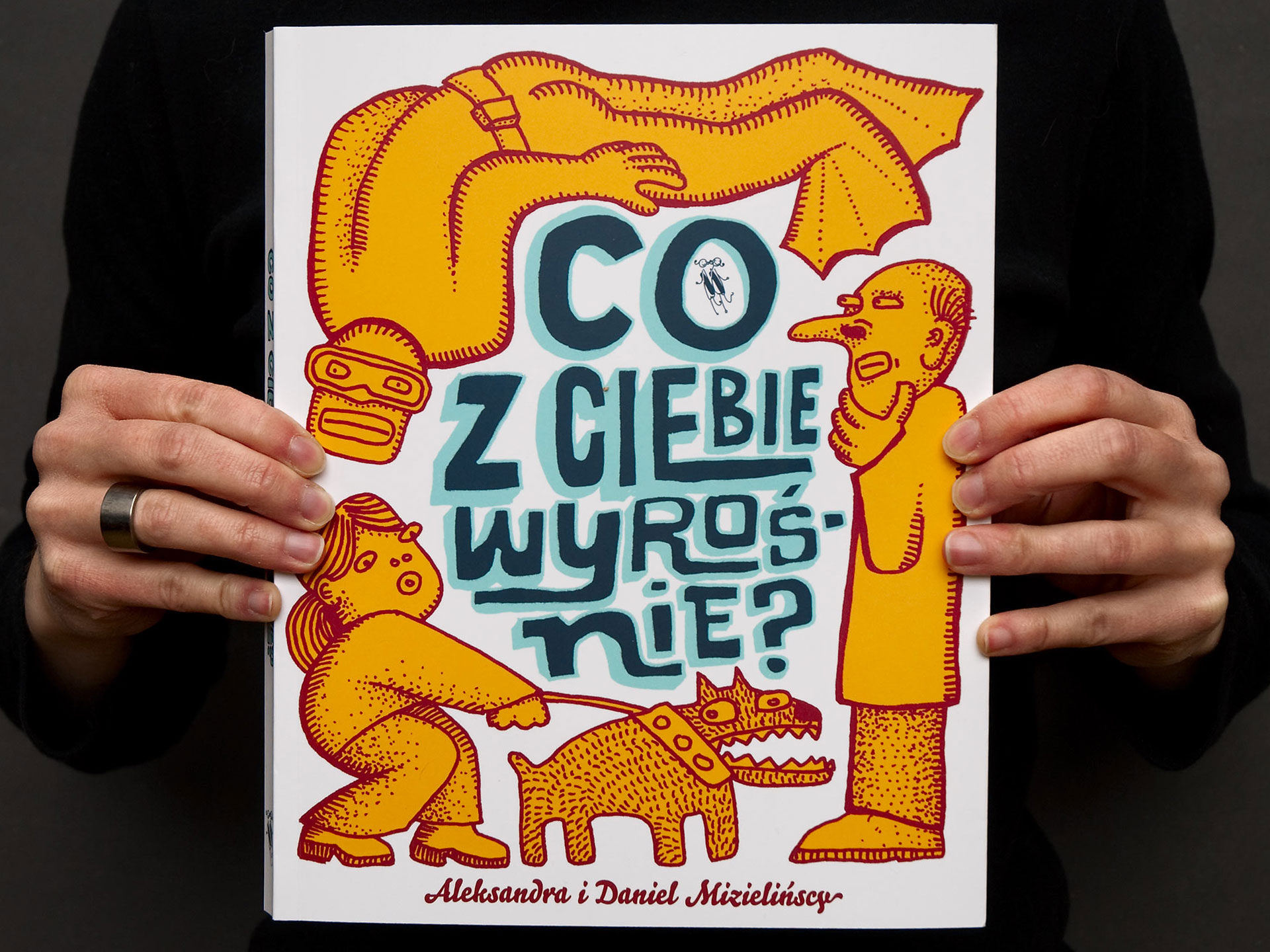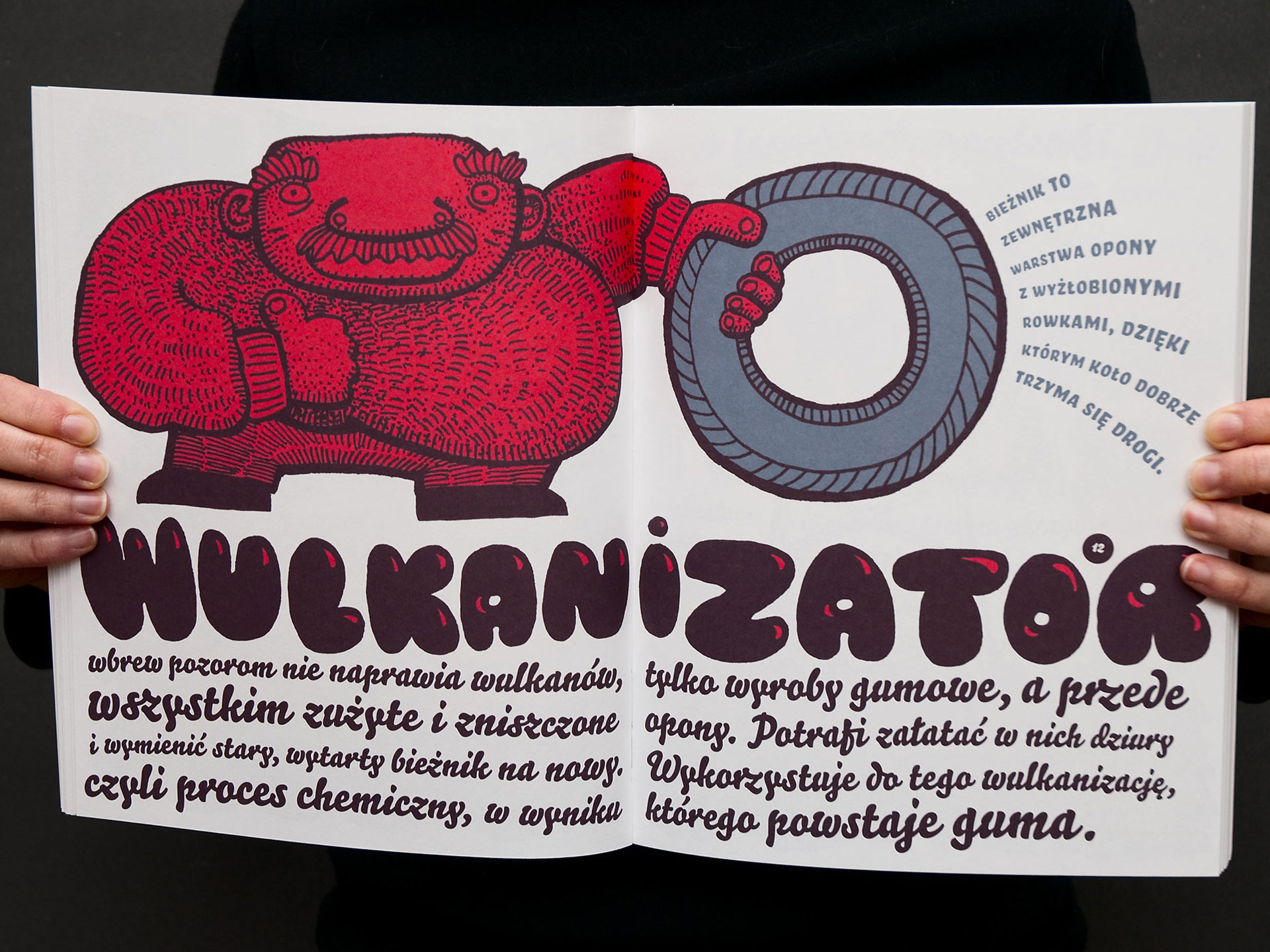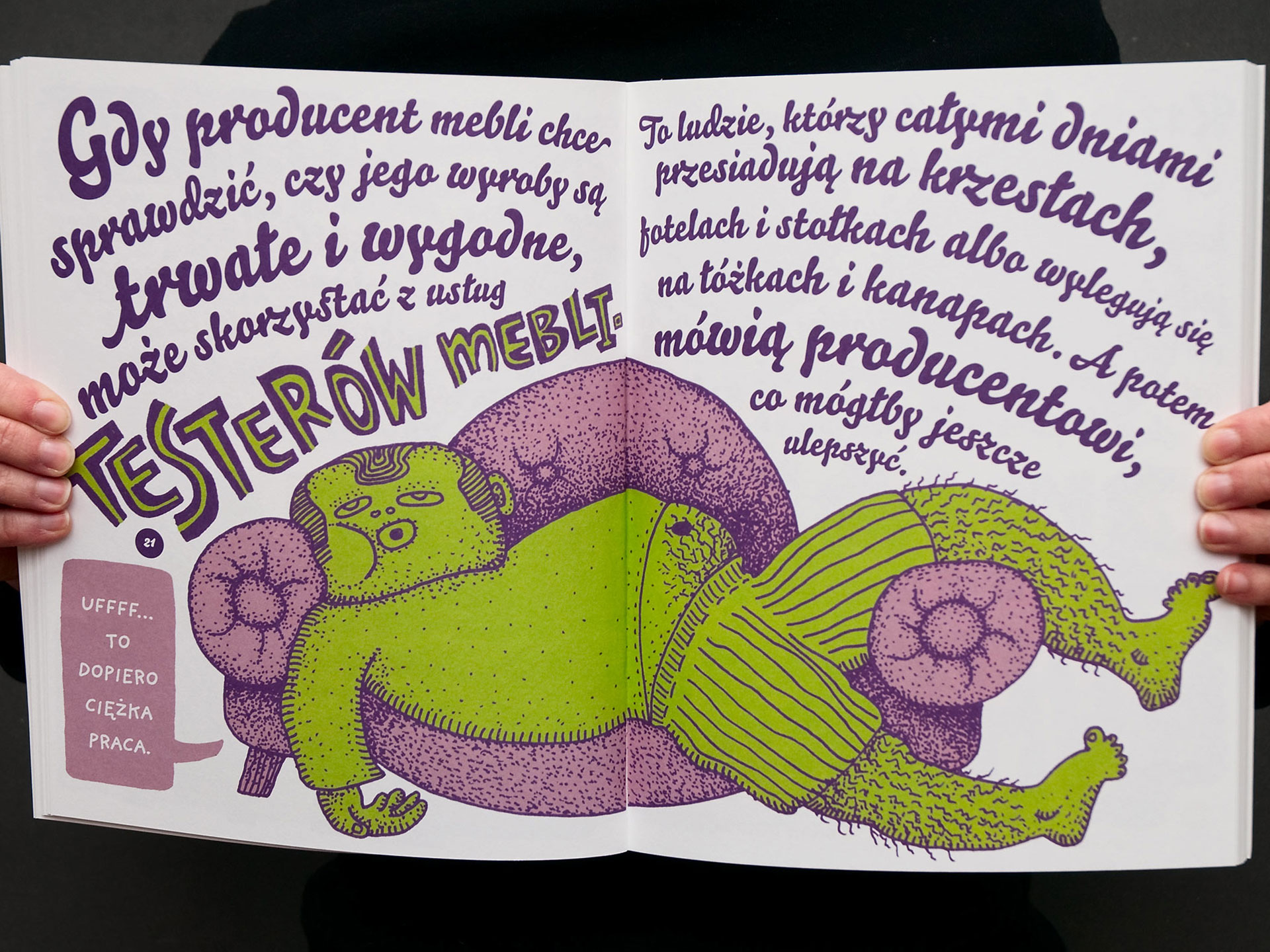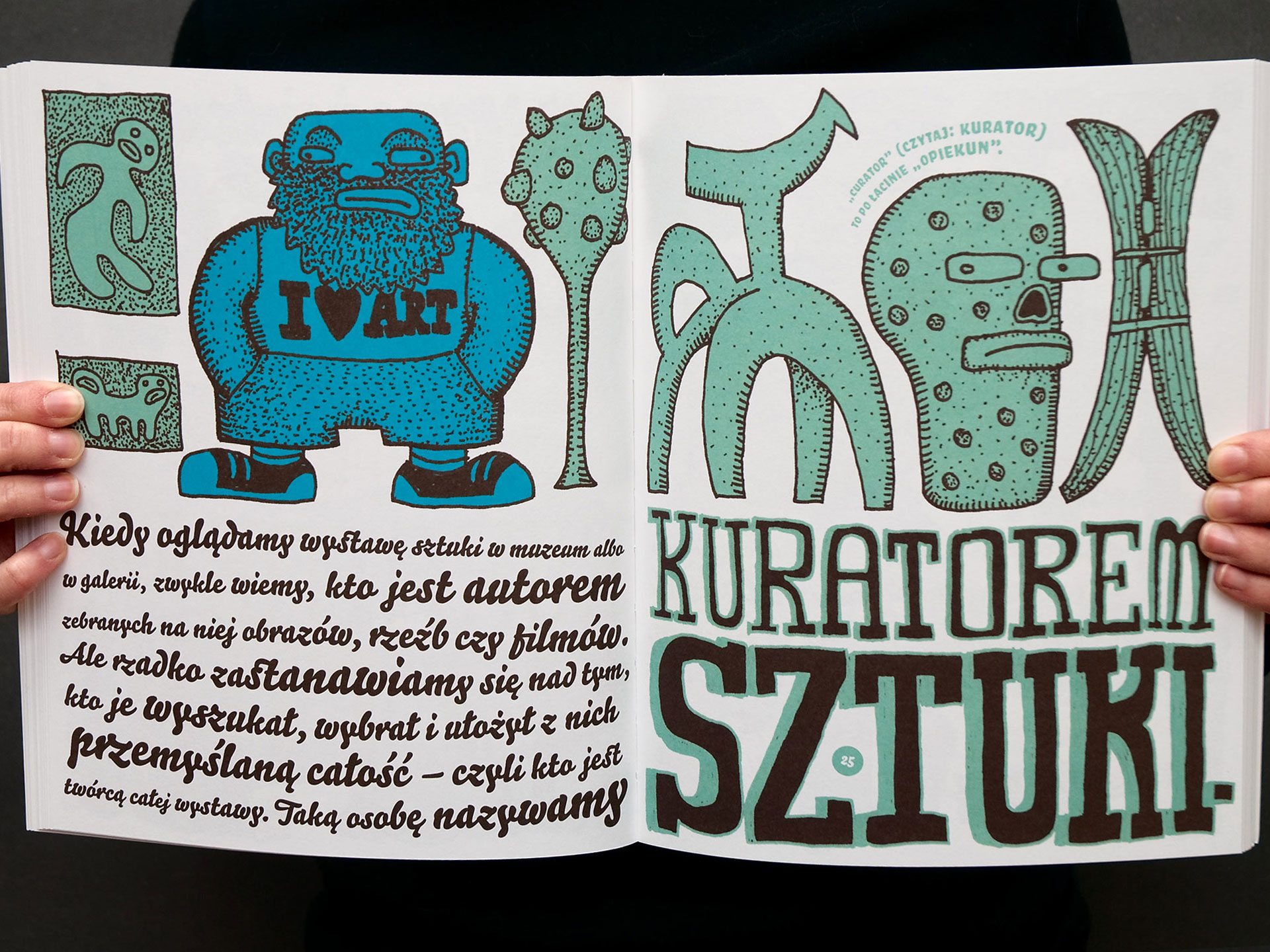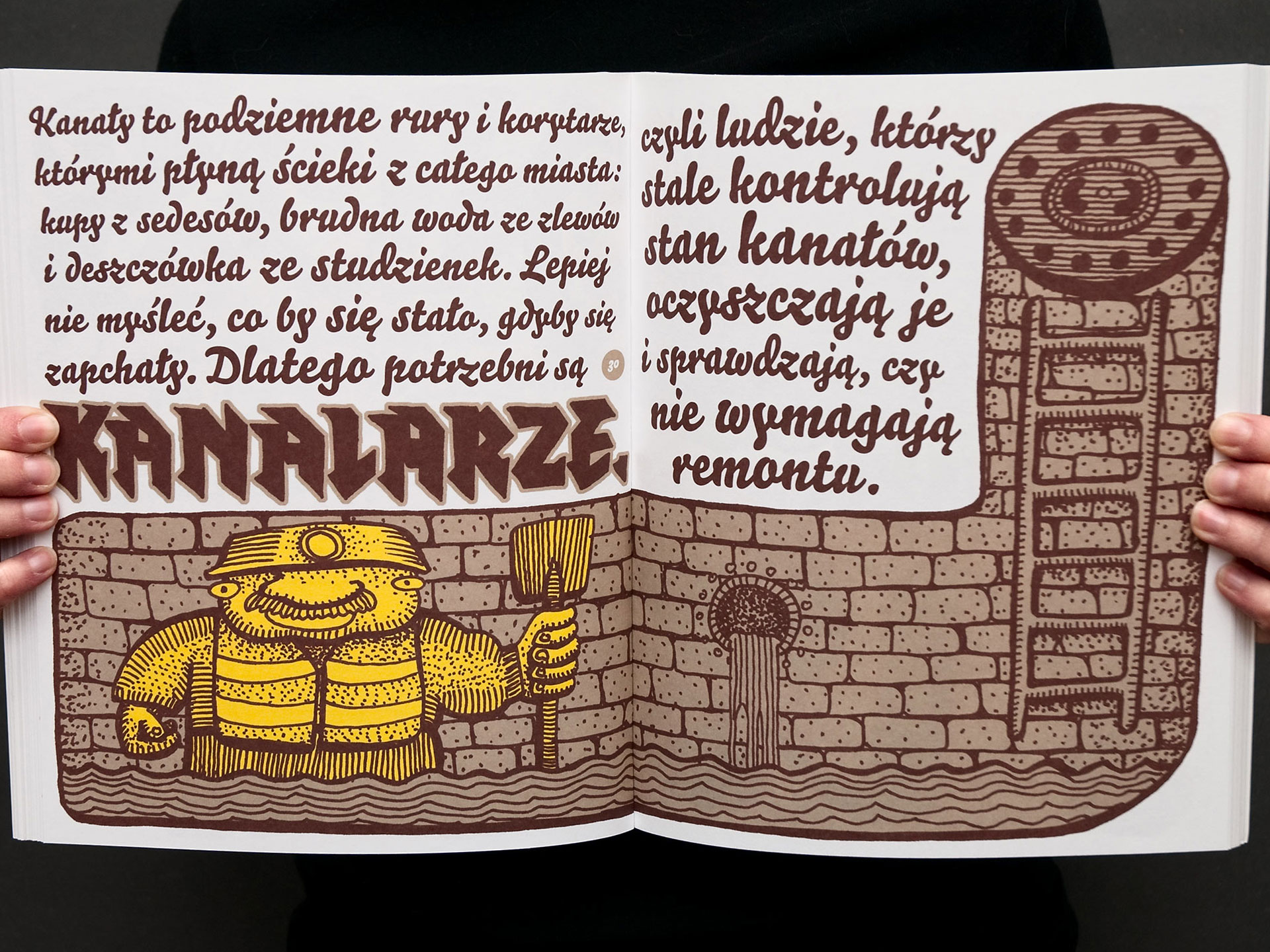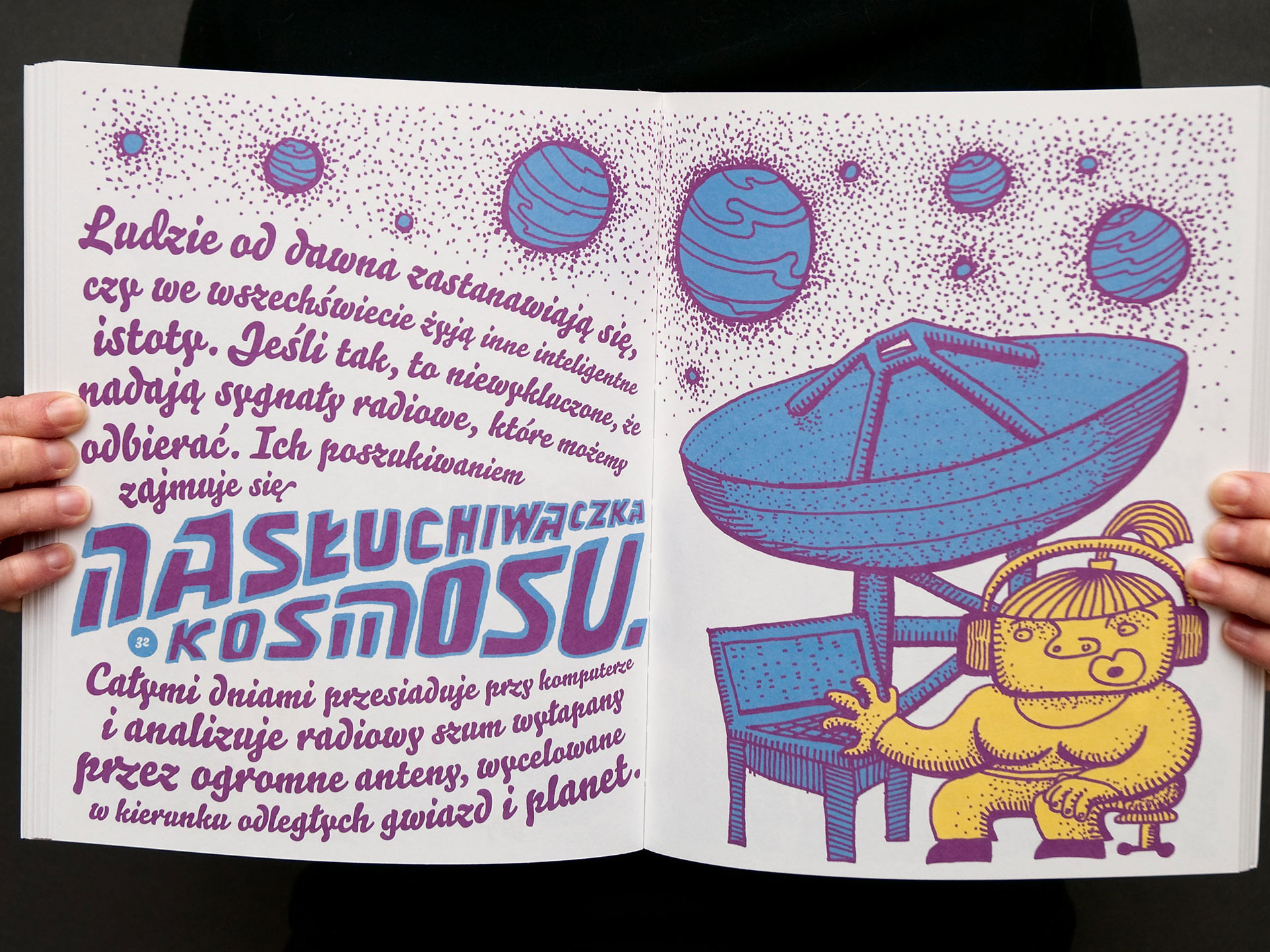
A catalogue of 62 original, remarkable and fun job descriptions. Lots of hand lettering, combined with very outspoken typography in Bello. Read more at the website of the creators, Aleksandra and Daniel Mizieliński: www.oladaniel.com/what-will-become-of-you
Co z Ciebie wyrosnie
Aleksandra and Daniel Mizieliński
Polish